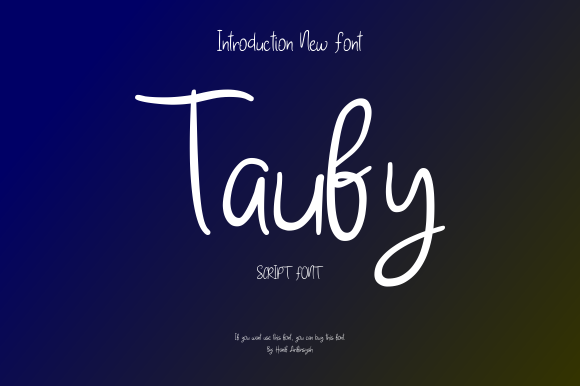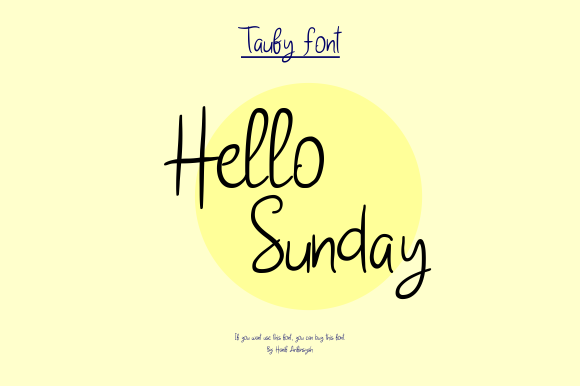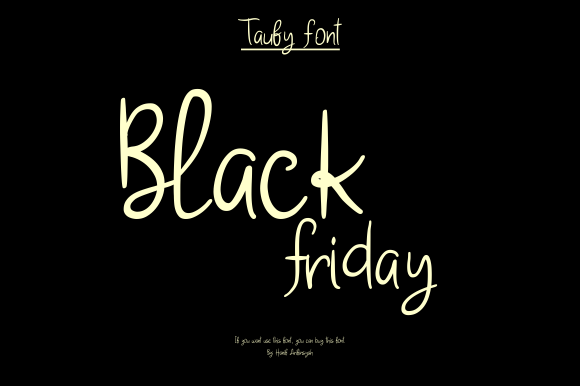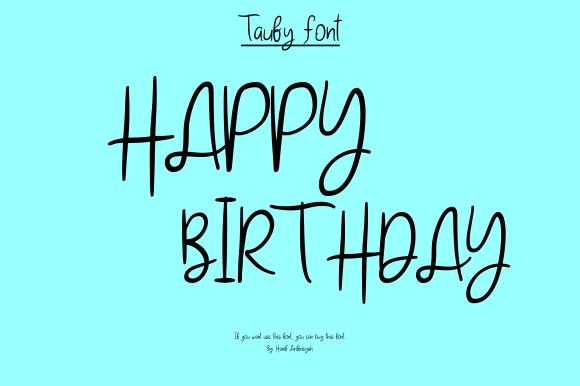
HomeScript FontsTaufy Font Script Fonts Taufy Font FacebookXPinterestWhatsApp Taufy Font Poster 2 Taufy Font Poster 3 Taufy Font Poster 4 About Taufy Font Introducing Taufy, an elegant, full-featured script font with tons of alternate characters and OpenType features. DOWNLOAD ON CREATIVE FABRICAThis font is sold and delivered by Creative Fabrica. Font Canyon may earn a commission if you buy through this link. People also explored Cataleya Font Ballio Font Love Asllinda Whikey Font Rosseta Notes Font Adelaide Font Hello Monogram Font Velonyka Font Illuminoust Font 318 0 TagsTaufy Font Previous articleLoemintoe FontNext articleHarsley Font LEAVE A REPLY Cancel reply Comment: Please enter your comment! Name:* Please enter your name here Email:* You have entered an incorrect email address! Please enter your email address here Website: Save my name, email, and website in this browser for the next time I comment. Personal Use Free Vinograd Personal Use Free Read more about this font Broodfath Personal Use Free Read more about this font Jurnal Personal Use Free Read more about this font Yukarimobile Personal Use Free Read more about this font BLOG Modern Sans-Serif Fonts That Brands Love in 2025 In 2025, modern sans-serif fonts remain a top choice for brands looking to project clarity, professionalism, and... Elegant Wedding Invitation Fonts – Handwritten & Script Fonts The 10 Best Handwriting Fonts to Add Personality to Your Designs Best Fonts for T-Shirt Design – Top 2025 Picks